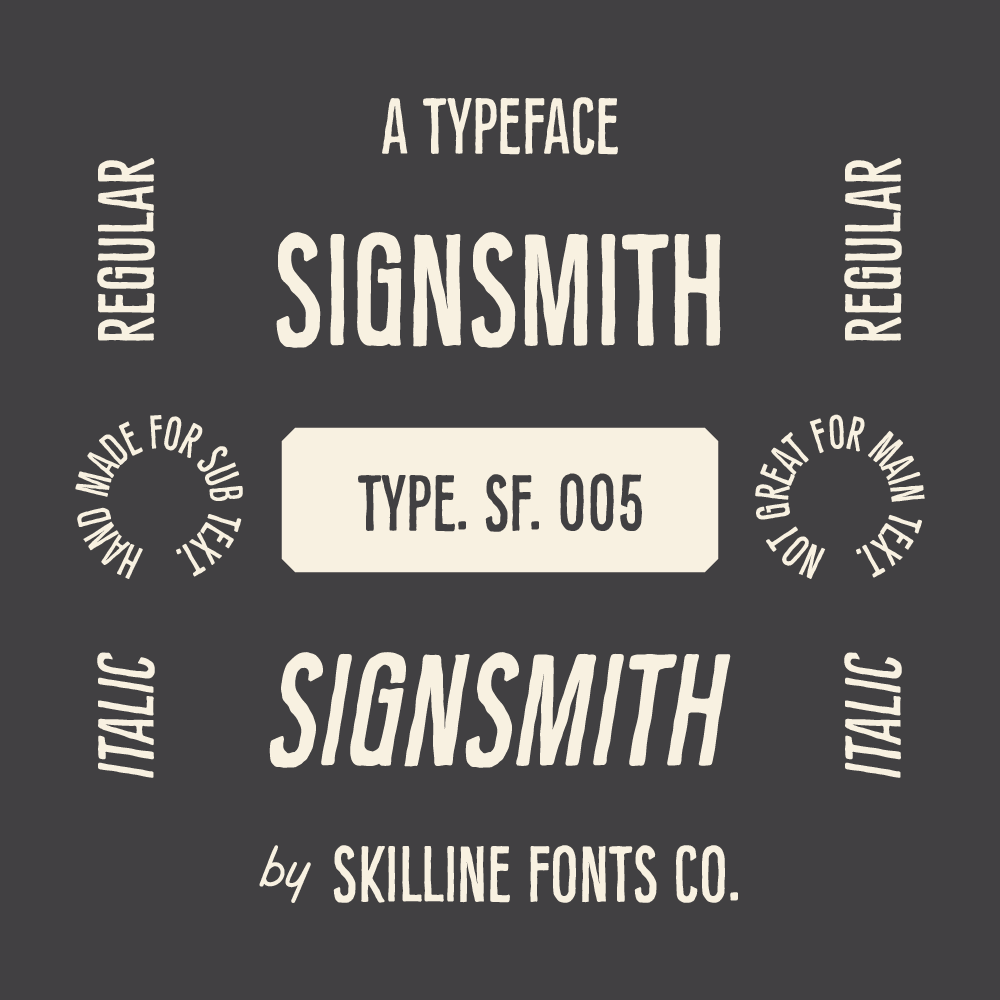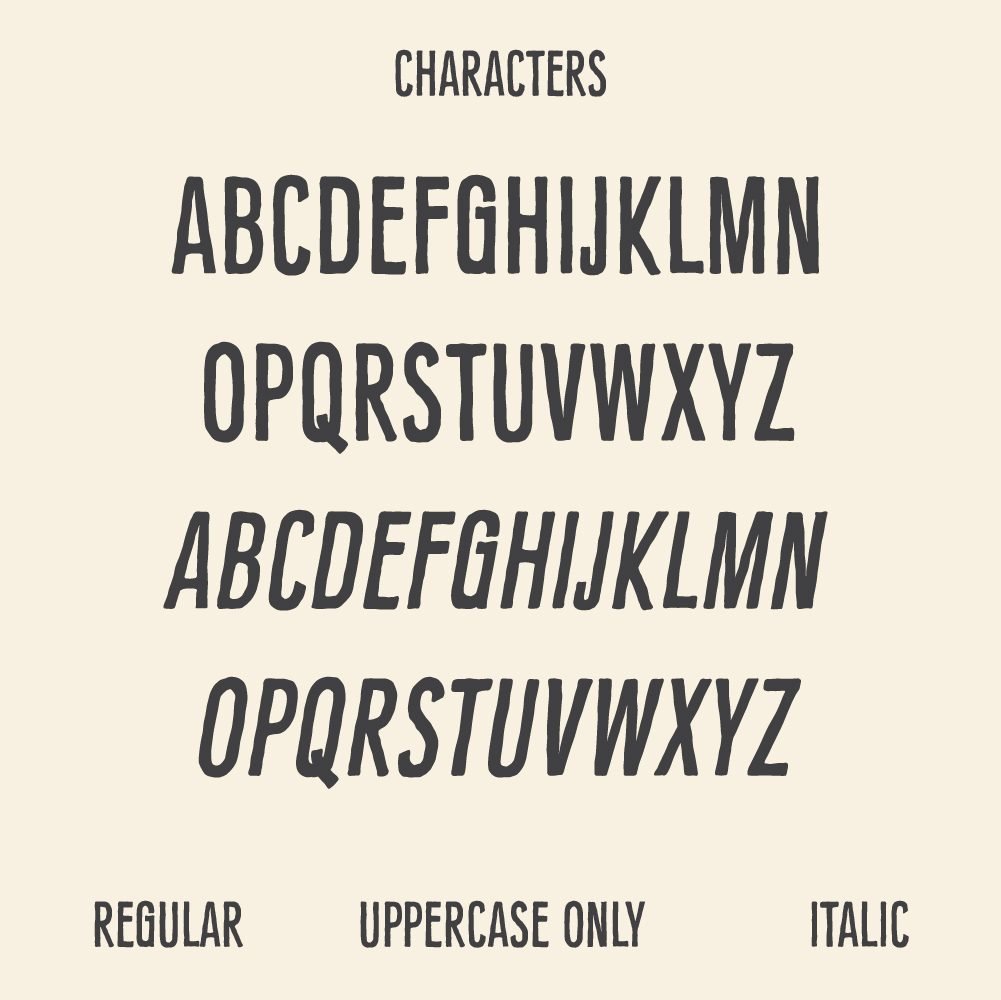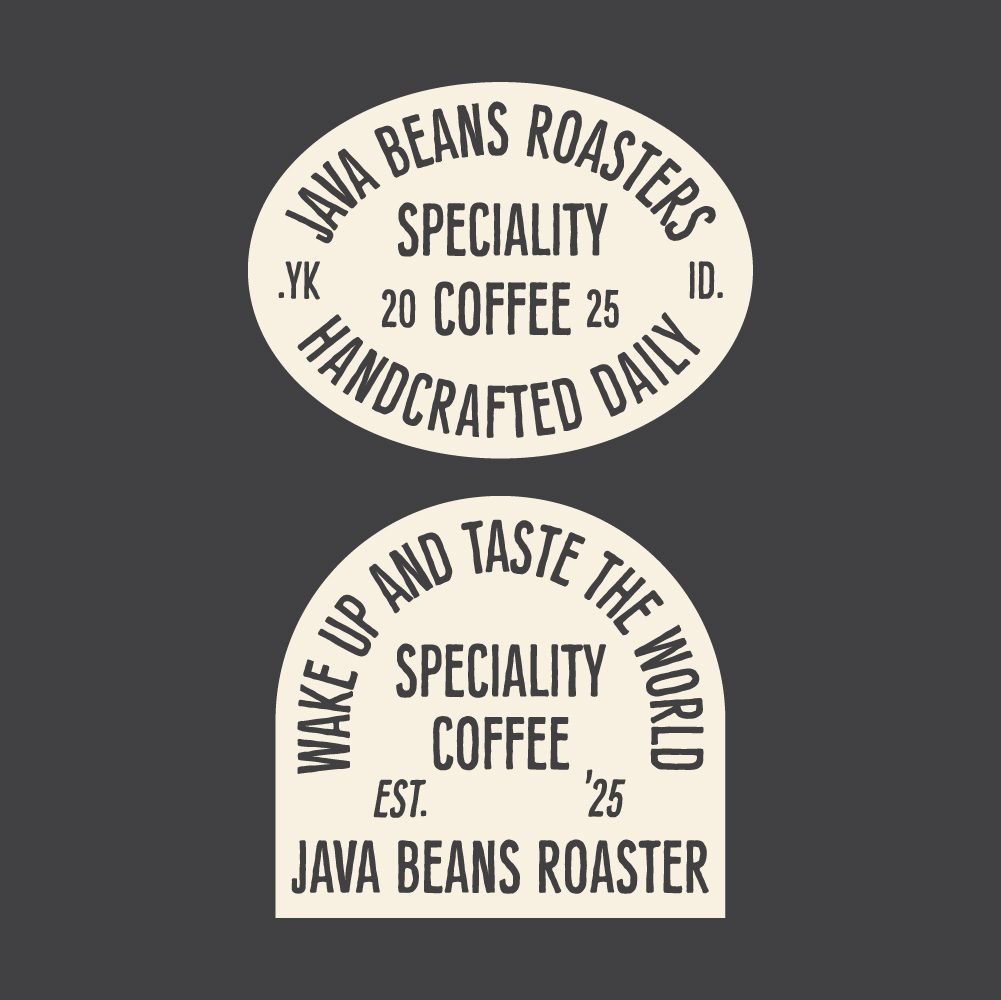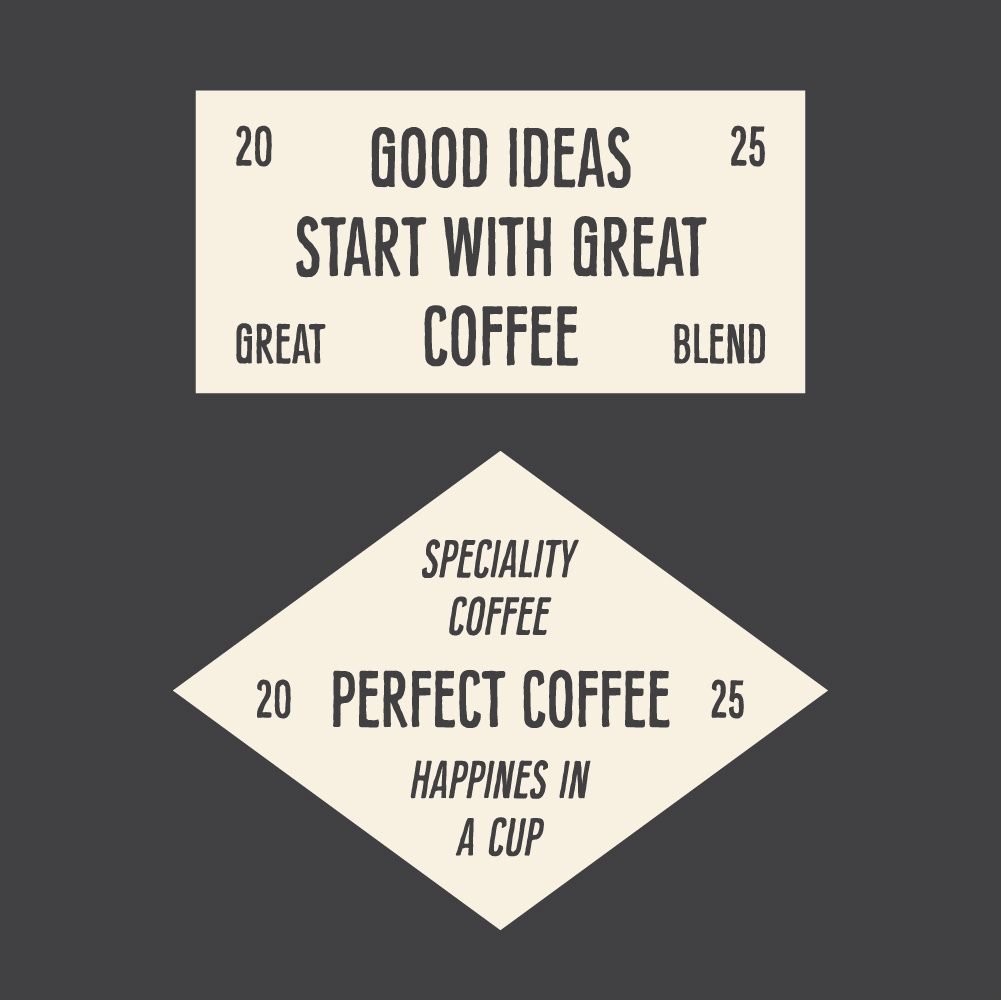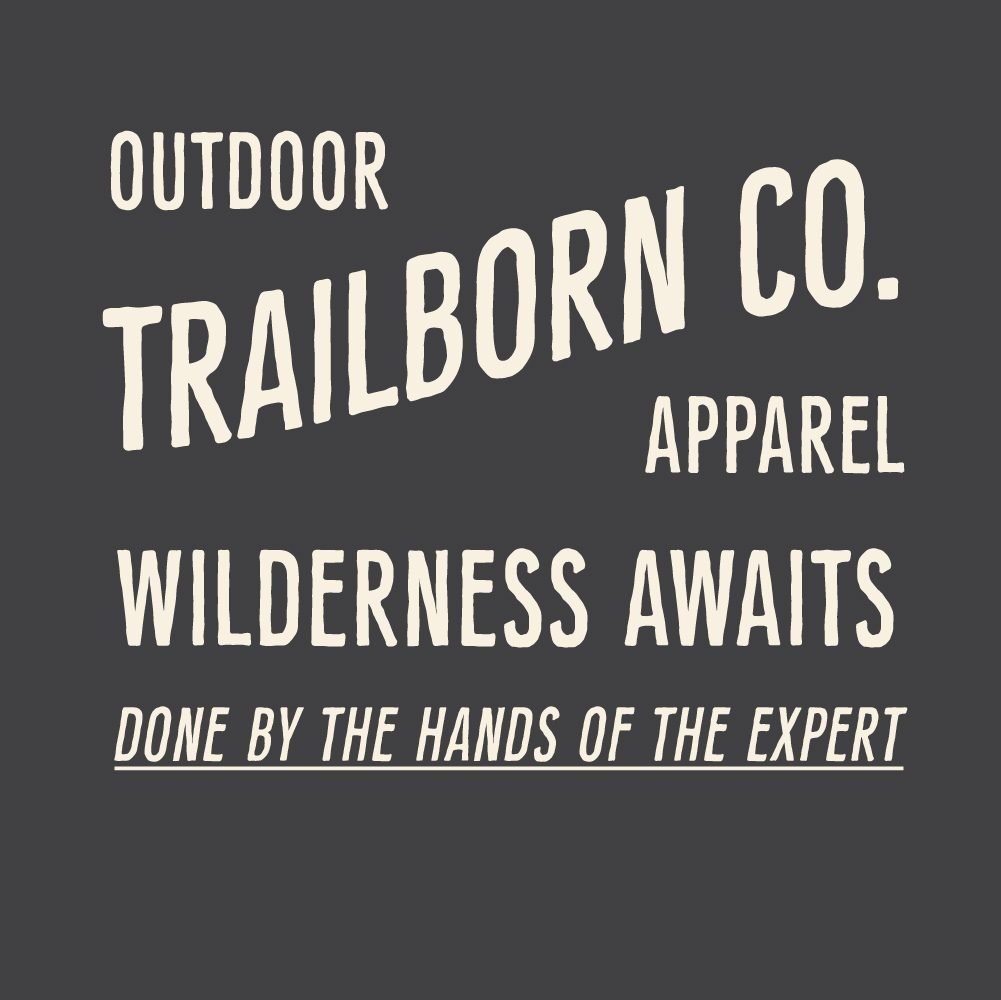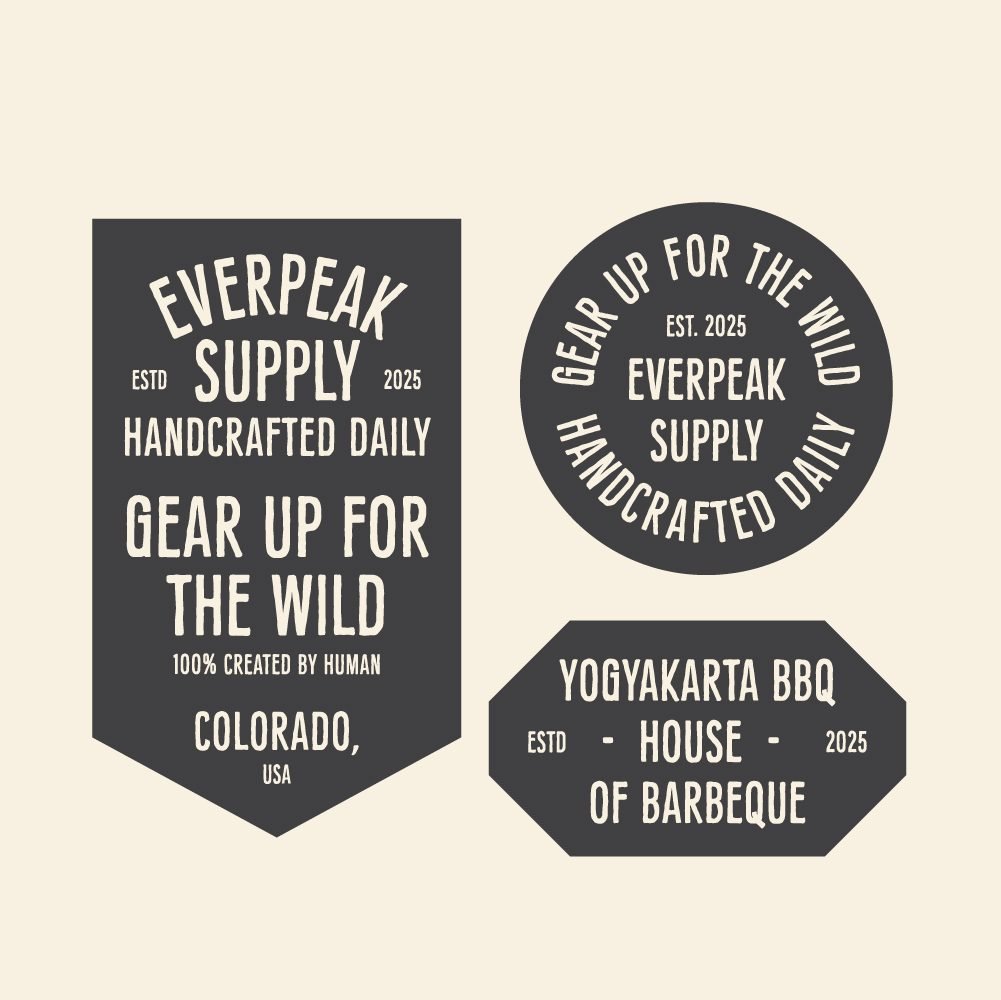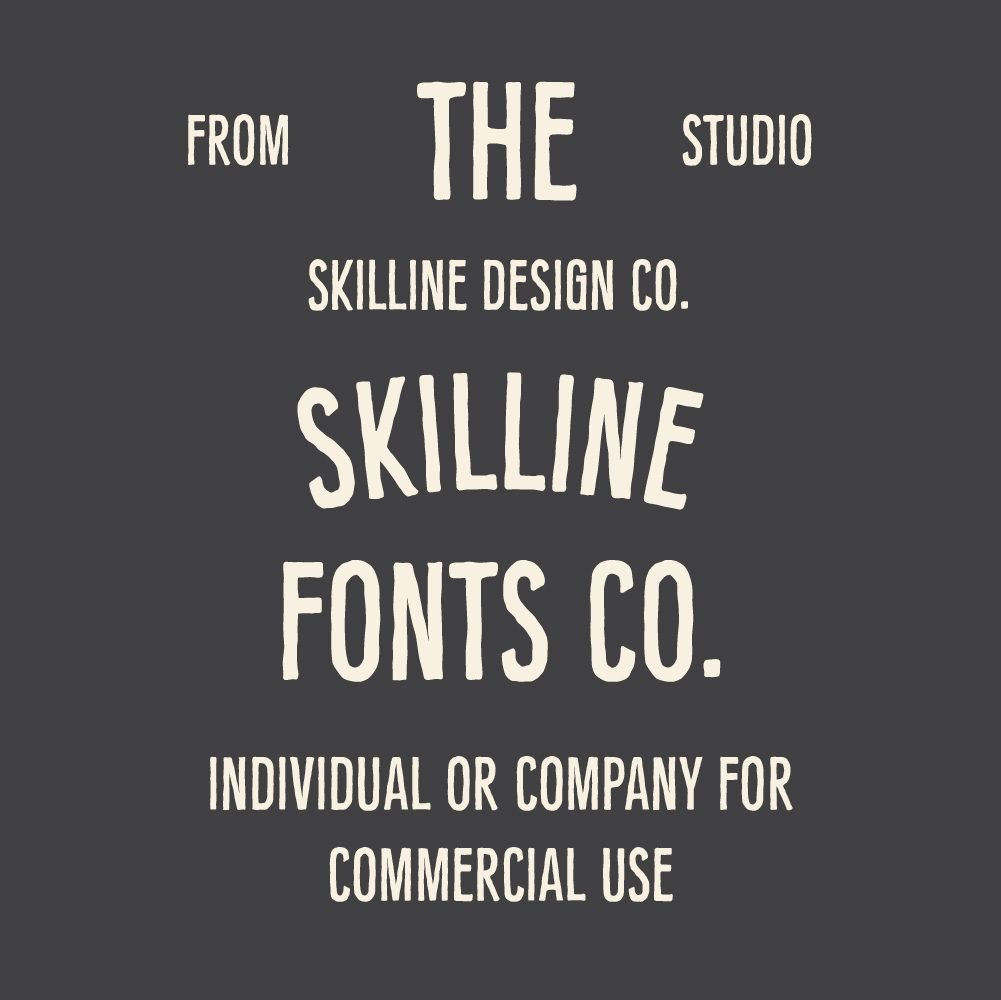
condensed hand-drawn display font
SFC Signsmith Regular
SFC Signsmith Italic
Description
Signsmith is a condensed hand-drawn display typeface inspired by vintage sign painting traditions. Featuring bold strokes, handcrafted texture, and condensed proportions, it delivers a rugged yet highly readable look that feels authentic and timeless.
Available in both regular and italic styles, Signsmith brings strong character to modern branding with a nostalgic edge, making it both expressive and professional across a wide range of applications.
Ideal Applications for SFC Signsmith Typeface
• Logo & brand identity
• Posters & display headline or subs
• Apparel & merchandise graphics
• Packaging & labels
• Signage layouts
• Regular & Italic Styles
• Condensed Display Typeface
• Handcrafted Letterforms
• Basic Numerals & Punctuation
• Multilingual Support